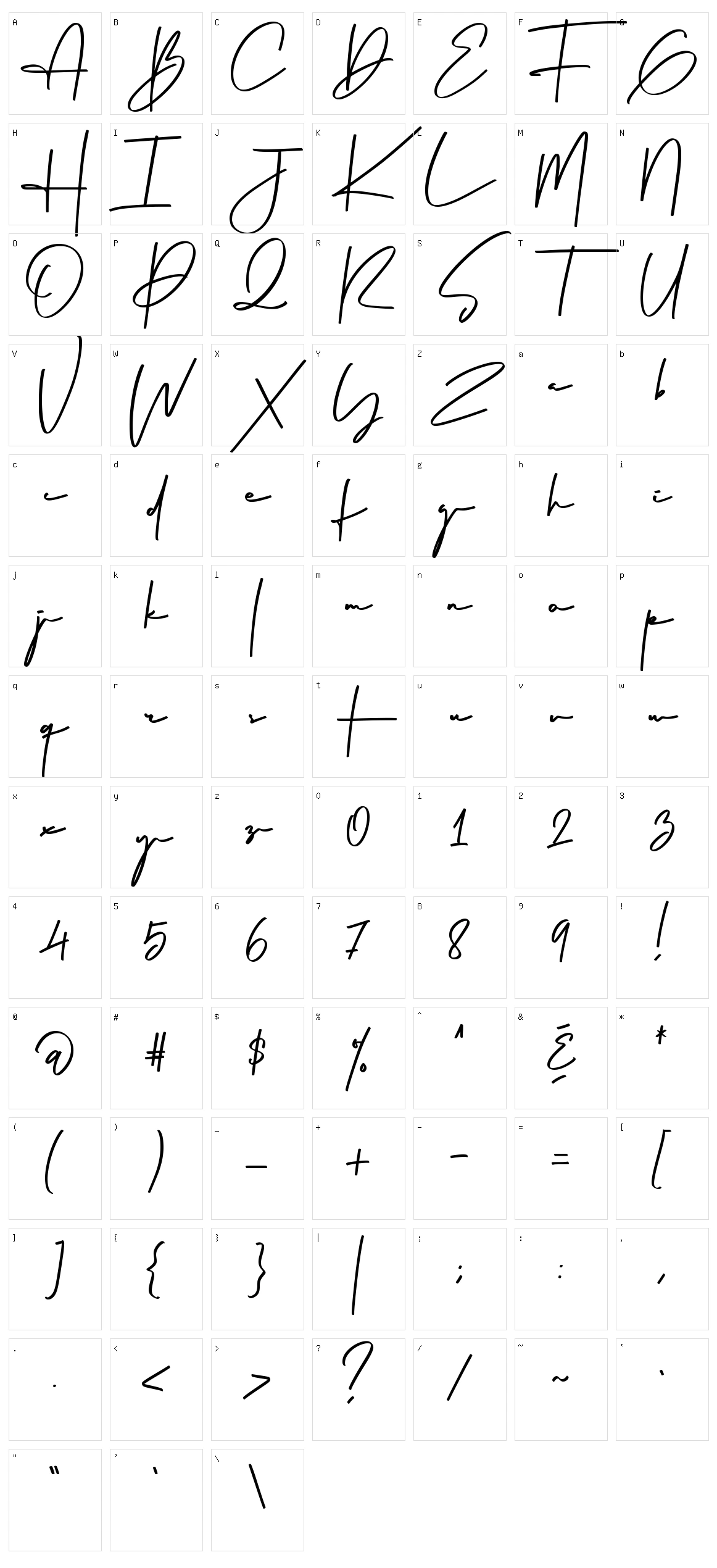
WINTER PEN
- Simple Signature Font -
Winter Pen is a flowing handwritten font, described by an elegant touch, perfect for your favorite projects.
Fall in love with its incredibly distinct and timeless style and use it to create spectacular designs!